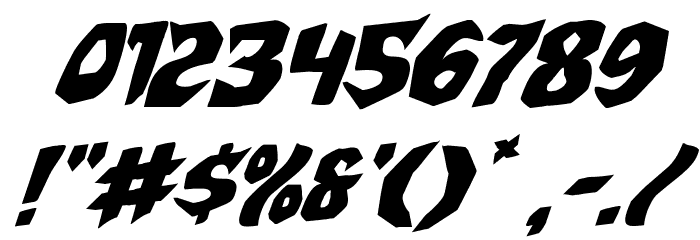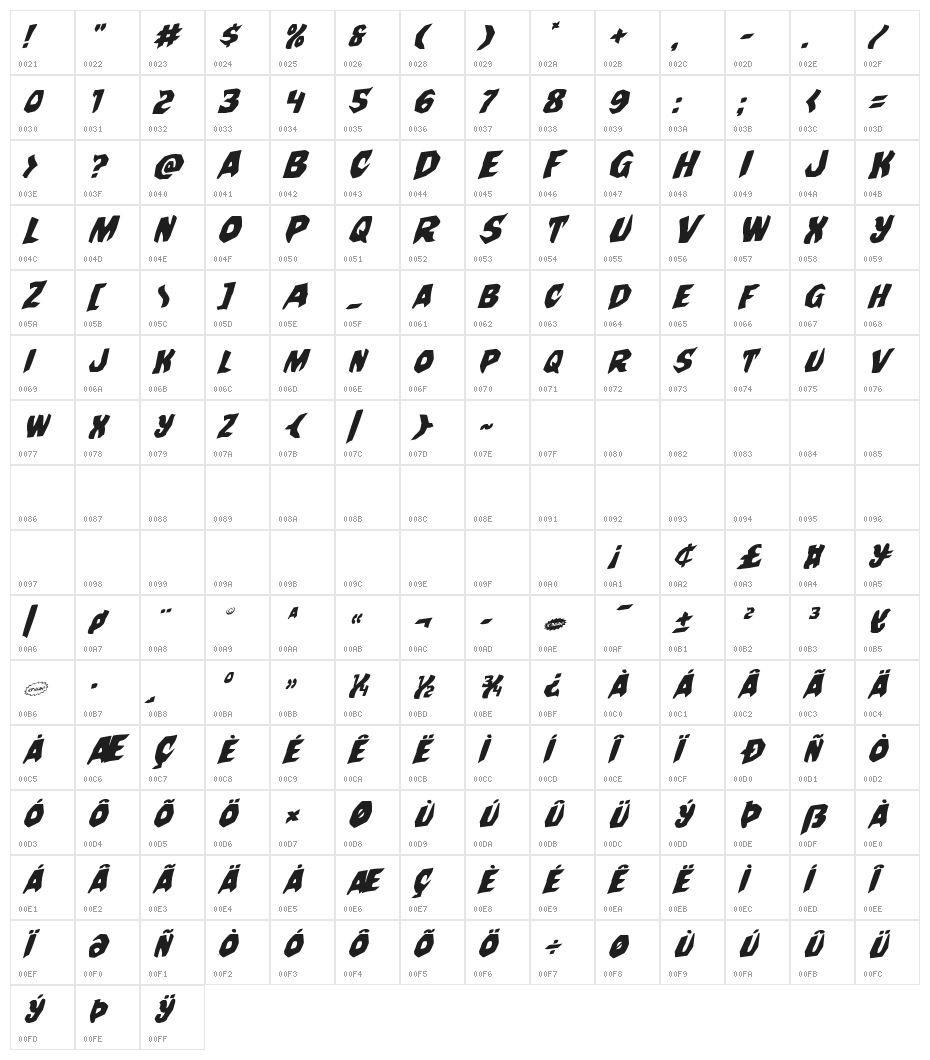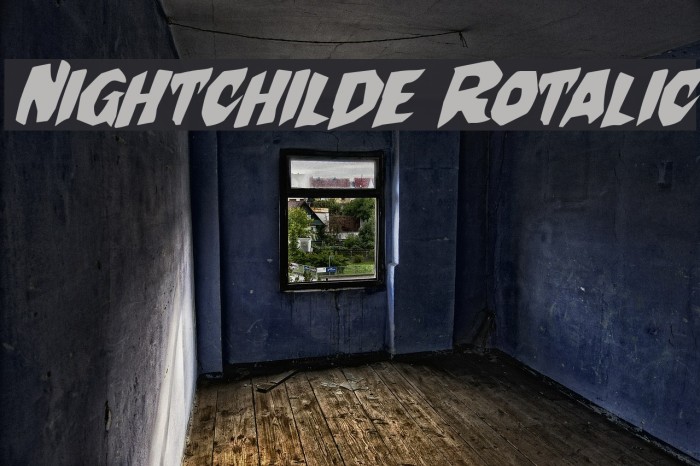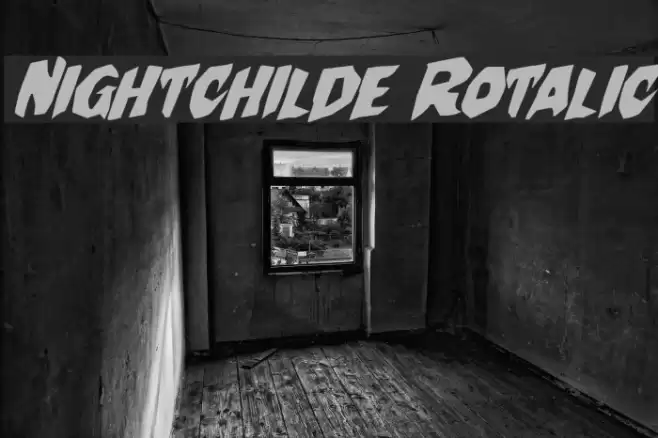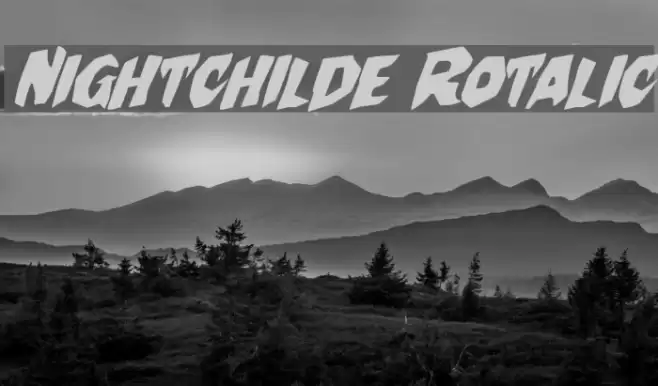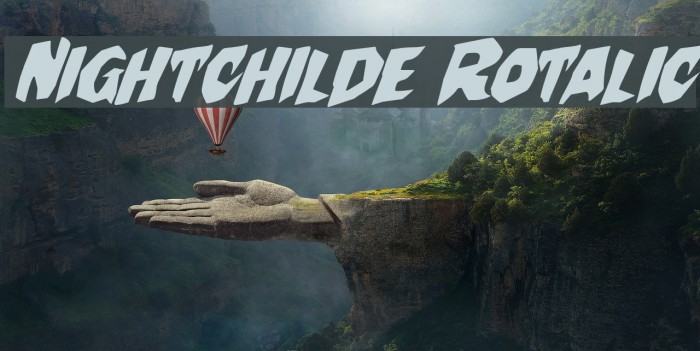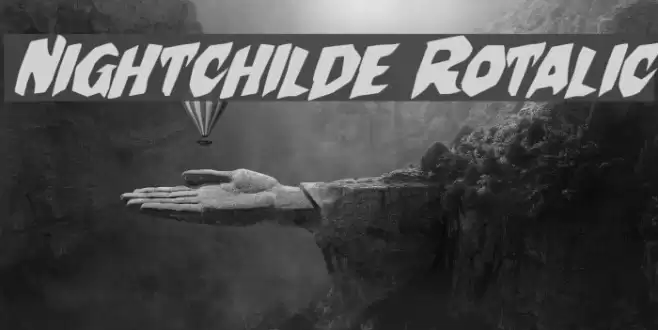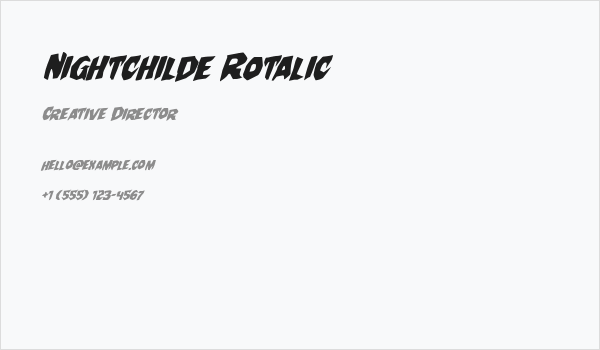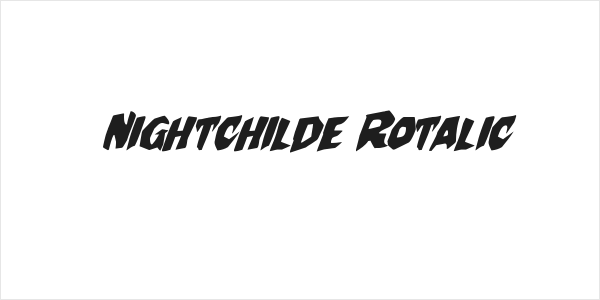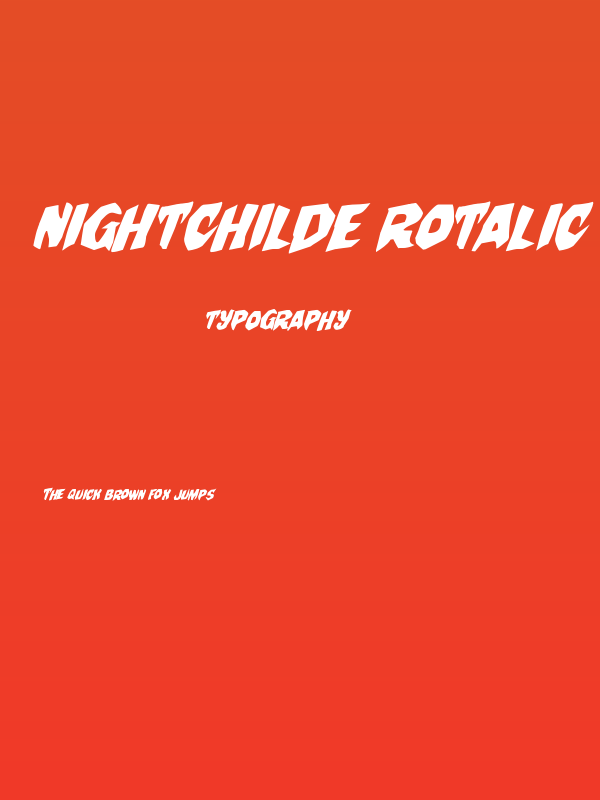
Nightchilde Rotalic Font
Nightchilde Rotalic Description
This font features a bold and dynamic style with sharp, angular edges and a distinct slant, giving it a sense of motion and energy. The uppercase and lowercase letters maintain a consistent, aggressive appearance, while the numbers and special characters follow suit with the same boldness and angularity. The overall design is reminiscent of graffiti or street art, making it stand out with its unique and edgy aesthetic.
| Overall Style | Modern, Edgy |
| Proposed Projects | Ideal for projects that require a bold statement, such as posters, album covers, or branding for edgy or urban-themed products. |